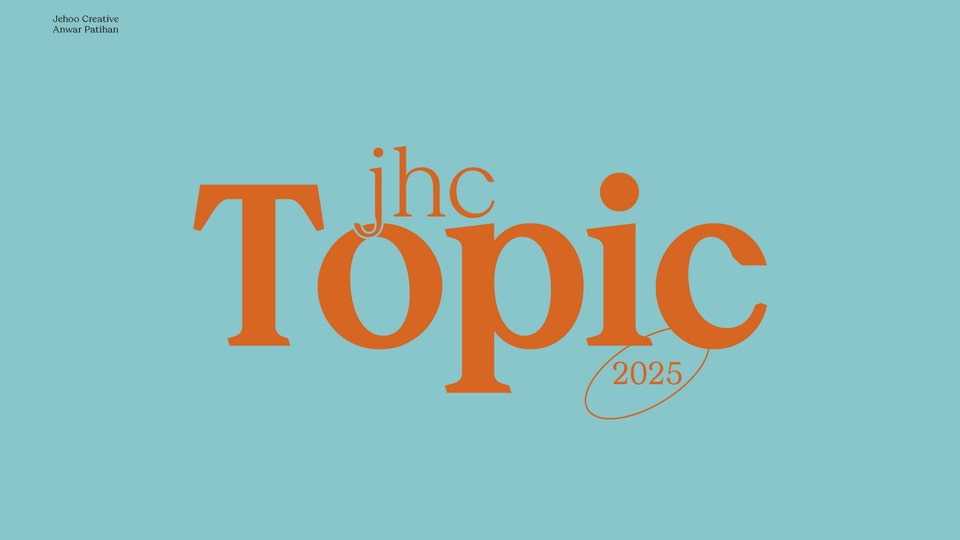
Download JHC Topic font, a refined serif typeface designed for versatility and elegance. It features clean lines, subtle contrasts, and modern proportions.